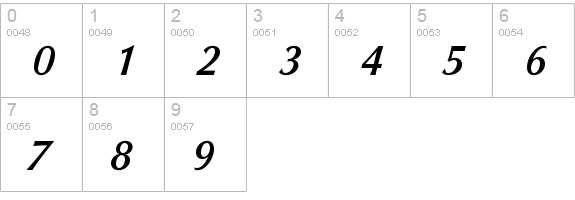
Columbia-MediumIta Font Details
Columbia-MediumIta is a versatile and elegant font that exudes a sense of sophistication and modernity. This font strikes the perfect balance between classic and contemporary, making it suitable for a wide range of design projects. With its medium weight and italic style, Columbia-MediumIta adds a touch of flair and individuality to any text. The clean lines and smooth curves of Columbia-MediumIta make it easy to read and visually appealing, making it an excellent choice for both print and digital applications. Whether you're designing a logo, creating a poster, or working on a website, this font will elevate your design and help you stand out from the crowd. Best of all, Columbia-MediumIta is available for free download at FontsMarket.com. This means you can access this high-quality font without breaking the bank, allowing you to add a touch of class to your projects without any cost. Don't miss out on the opportunity to enhance your designs with Columbia-MediumIta - download it today and take your typography to the next level!